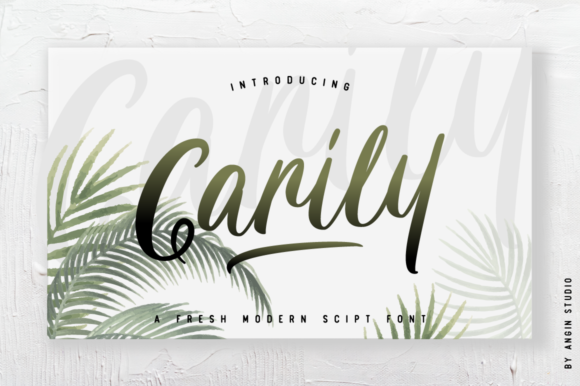
Discover the Charm of Carily Font: A Modern Handwritten Gem
I’ll never forget the moment I stumbled upon the perfect font for a client’s branding project. I was on a tight deadline, and my design options seemed limited. That’s when I discovered Carily Font – a modern and fresh handwritten font that instantly caught my attention with its cool vibe. It perfectly combines elegance, charm, and style, making it an instant favorite in my design toolkit.
A Personal Review of Carily Font
What I Love About Carily Font
- ✨ Elegant and charming: Carily Font has a unique ability to add a touch of sophistication to any design project.
- ✅ Highly versatile: This font can be used for a wide range of design applications, from branding and advertising to packaging and digital media.
- 💫 Modern and fresh: Carily Font has a distinctly contemporary feel that will make your designs stand out from the crowd.
While Carily Font is an excellent choice for many design projects, there are a few minor quirks to be aware of:
- ⚠️ Limited use in very small sizes: Due to its intricate details, Carily Font may not be the best choice for very small font sizes (below 10pt).
- 🤔 Occasional kerning issues: As with any font, you may need to adjust kerning manually to achieve optimal results.
The Backstory of Carily Font
Carily Font was designed by a talented typographer who’s passionate about creating beautiful, functional fonts for creative professionals. Inspired by the elegance of handwritten scripts and the playfulness of modern fonts, Carily Font was crafted to bring a touch of sophistication and charm to any design project.
| Font Name | Carily Font |
| Author | Angin Studio |
Q: What type of designs is Carily Font best suited for?
A: Carily Font is highly versatile and can be used for a wide range of design applications, including branding, advertising, packaging, and digital media.
Q: Is Carily Font suitable for body text?
A: While Carily Font is beautiful and elegant, it’s best suited for headlines, titles, and short paragraphs of text. For longer blocks of body text, a more traditional font may be more suitable.